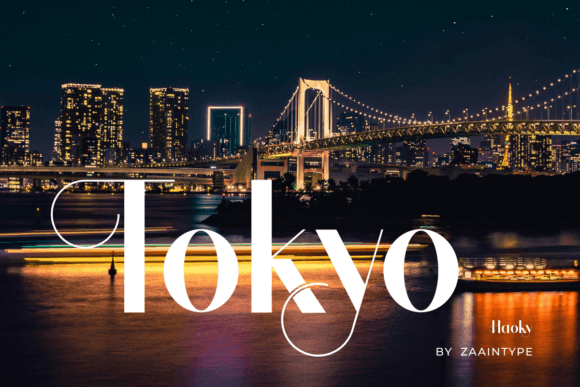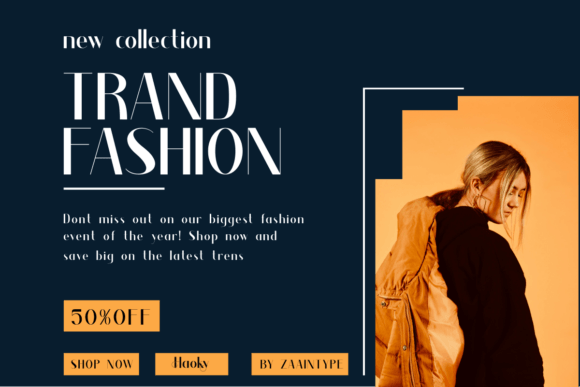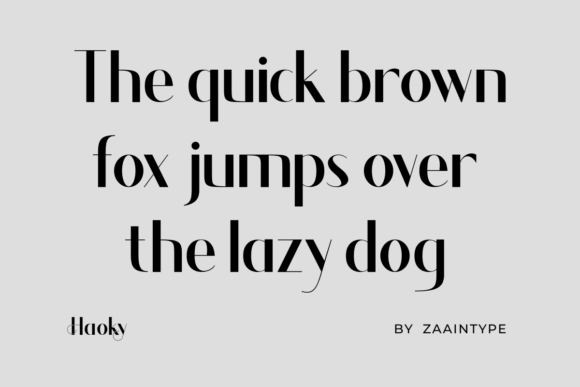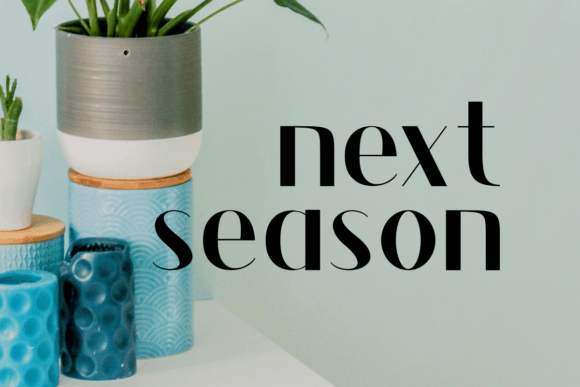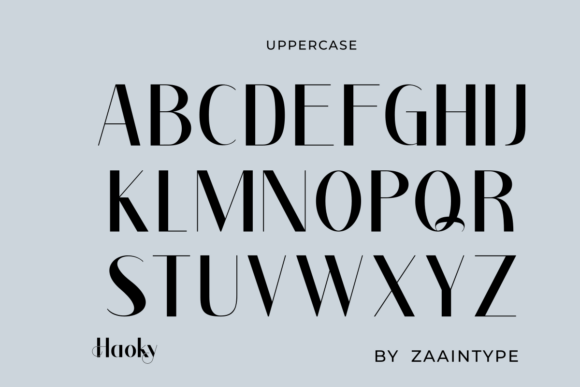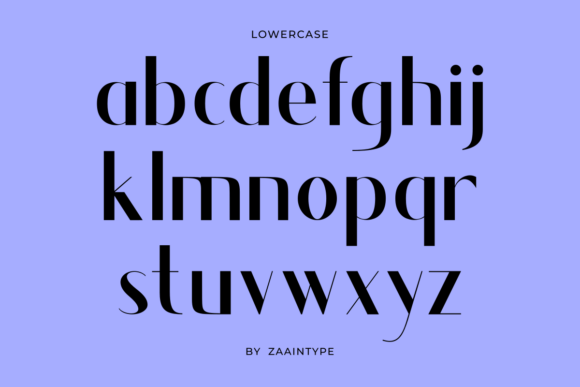
Unleash Your Design Potential with Haoky Font
Are you on the hunt for a font that can elevate your design projects and make them truly unforgettable? Look no further than Haoky, a chic and contemporary sans serif font that’s taking the design world by storm. With its sleek lines, minimalist aesthetic, and versatile styles, Haoky is the perfect choice for designers and crafters looking to add a touch of sophistication and dynamism to their work.
Discover the Power of Haoky
Haoky comes in two striking styles: Regular and Oblique. The Regular style boasts a pristine and polished look, exuding a professional charm that’s perfect for designs that require a touch of elegance. On the other hand, the Oblique style injects an element of bold dynamism, making it ideal for designs that need to make an instant impression. Whether you’re working on a branding project, digital media content, or any other design application, Haoky’s versatility and flexibility make it an excellent choice.
Key Features of Haoky
- Minimalist yet Proportional Layout: Haoky’s layout is carefully crafted to provide a seamless and harmonious visual experience. Its proportional design ensures that your text is easy to read and understand, making it perfect for body text, headings, and titles.
- Versatile Styles: With two distinct styles to choose from, Haoky empowers you to experiment with different design approaches and moods. Whether you want to convey professionalism, creativity, or playfulness, Haoky’s got you covered.
- High Legibility: Haoky’s sans serif design ensures that your text is clear and easy to read, even at small font sizes. This makes it perfect for digital media content, such as blog posts, social media updates, and website copy.
- Emotional Connection: Haoky’s sleek and modern aesthetic helps to create an emotional connection with your audience. Its clean lines and minimalist design make it easy to pair with images, graphics, and other design elements, ensuring that your message resonates with your target audience.
Design Applications for Haoky
Haoky’s versatility makes it suitable for a wide range of design applications, including:
- Branding and Logo Design: Haoky’s professional charm and sleek aesthetic make it perfect for branding and logo design projects. Use it to create a lasting impression and establish a strong visual identity for your brand.
- Digital Media Content: Haoky’s high legibility and emotional connection make it ideal for digital media content, such as blog posts, social media updates, and website copy.
- Print Design: Haoky’s clean lines and minimalist aesthetic make it perfect for print design projects, such as brochures, flyers, and posters.
- Web Design: Haoky’s versatility and flexibility make it an excellent choice for web design projects. Use it to create visually stunning and highly-legible website headers, titles, and body text.
Tips for Using Haoky Effectively
To get the most out of Haoky, here are some tips to keep in mind:
- Experiment with Different Styles: Don’t be afraid to experiment with both the Regular and Oblique styles to find the perfect fit for your design project.
- Pair with Images and Graphics: Haoky’s clean lines and minimalist aesthetic make it easy to pair with images, graphics, and other design elements. Use it to create visually stunning and emotionally compelling designs.
- Adjust Font Sizes and Line Heights: To ensure optimal legibility, adjust font sizes and line heights to suit your design needs.
| Author | zaaintype |
In conclusion, Haoky is a powerful and versatile font that’s perfect for designers and crafters looking to elevate their design projects. With its sleek lines, minimalist aesthetic, and versatile styles, Haoky empowers you to craft visually stunning, highly-legible, and emotionally compelling designs that truly stand out. Whether you’re working on a branding project, digital media content, or any other design application, Haoky is an excellent choice. So why wait? Experience the transformative power of Haoky today and take your designs to the next level!